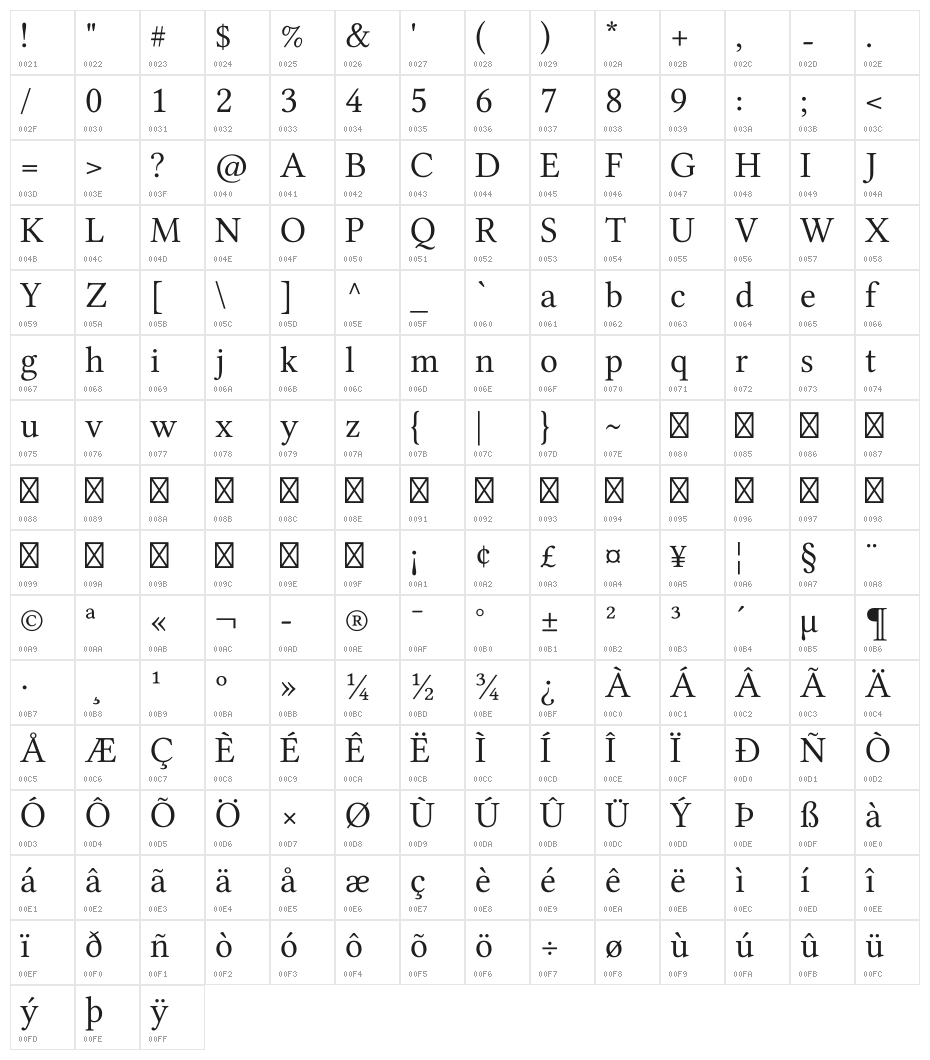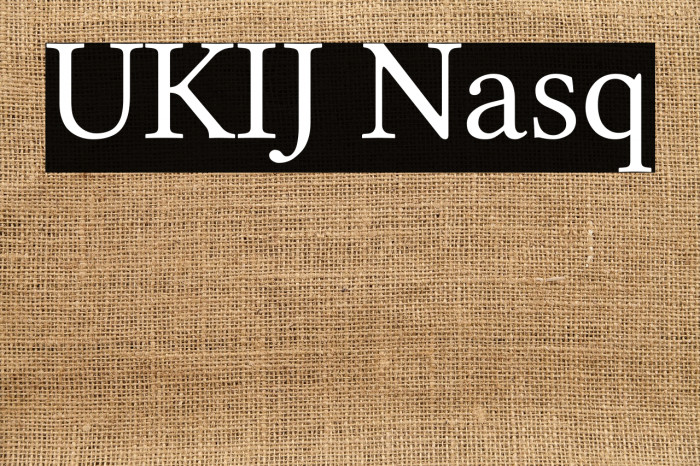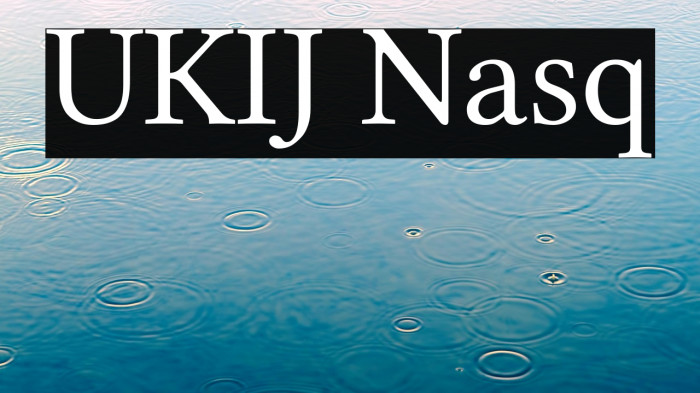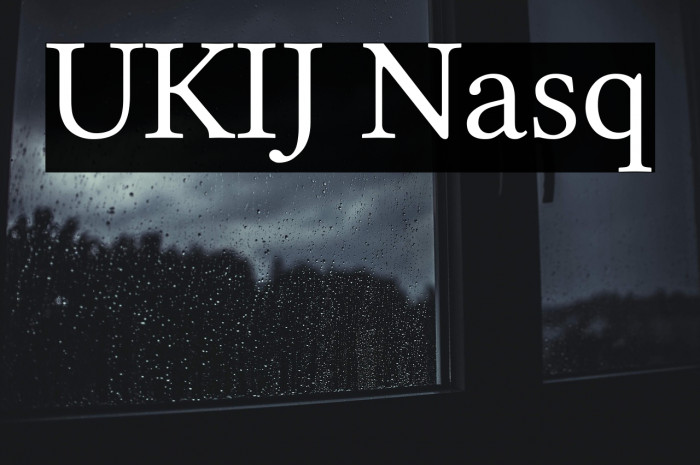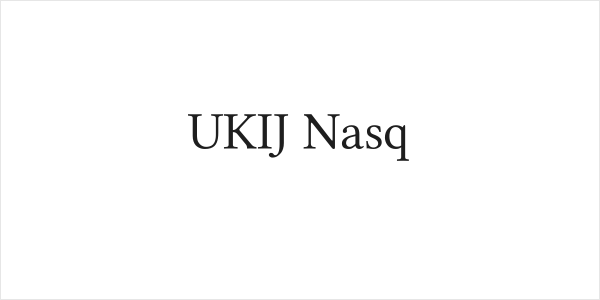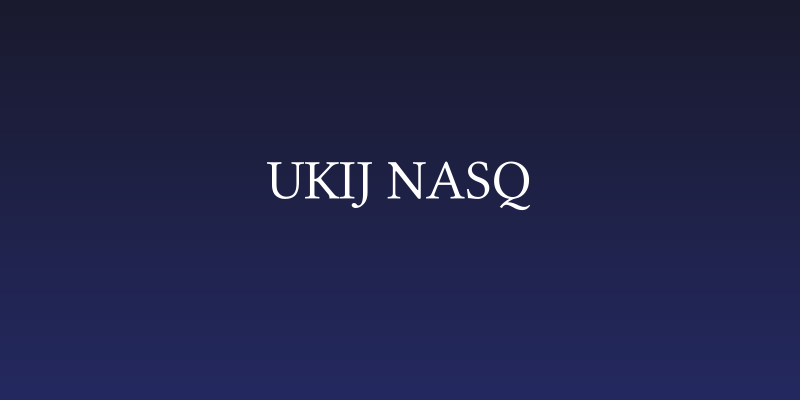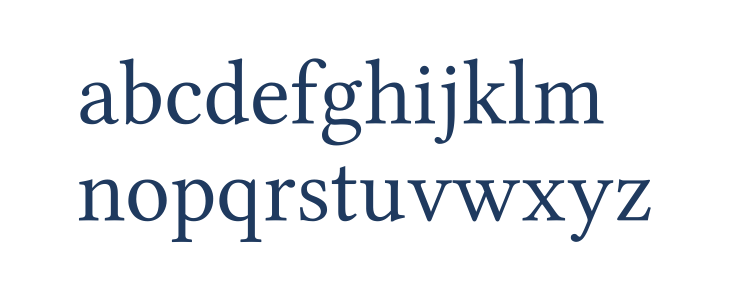
UKIJ Nasq Font
UKIJ Nasq Description
This font features a classic serif design with elegant, well-defined strokes and a balanced structure. The uppercase letters exhibit a traditional form with slight variations in stroke width, giving them a refined appearance. The lowercase letters maintain a consistent style, with smooth curves and a harmonious flow. The numerals are clear and legible, making them suitable for various applications. Special characters are thoughtfully designed, complementing the overall aesthetic. This font exudes a timeless quality, ideal for projects that require a touch of sophistication.